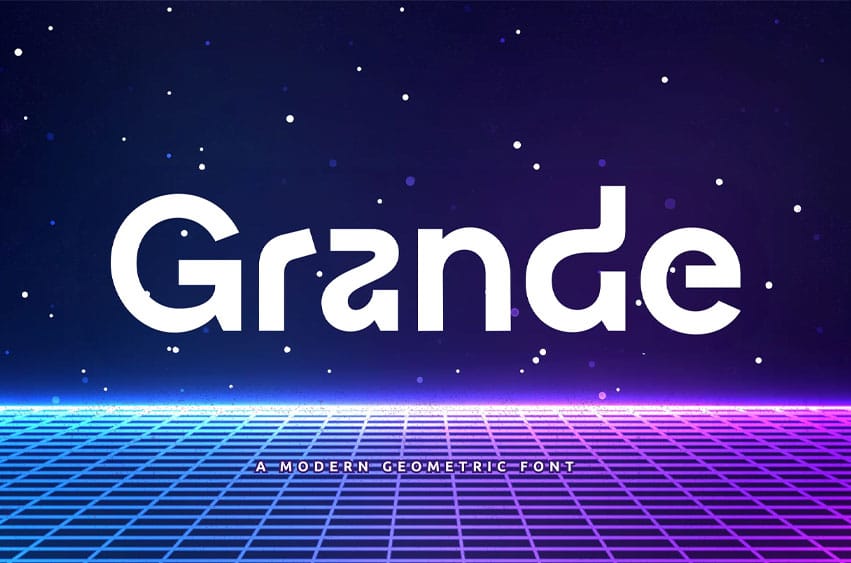
Grande Font is a unique, modern geometric font with a unique, elegant, modern, and modern style. It is a sans-serif font perfect for branding projects, logos, social media posts, product packaging, labels, etc.